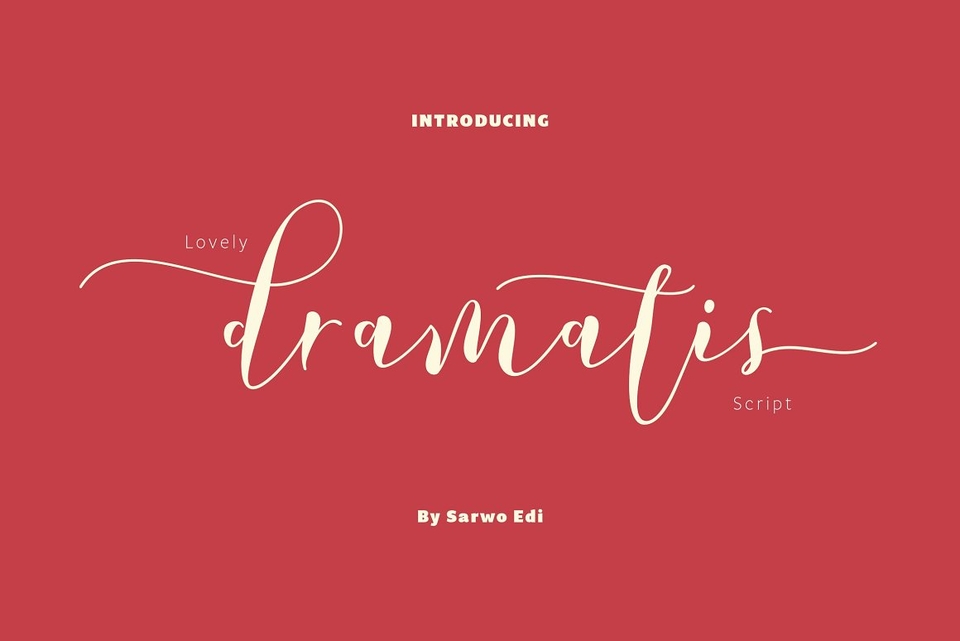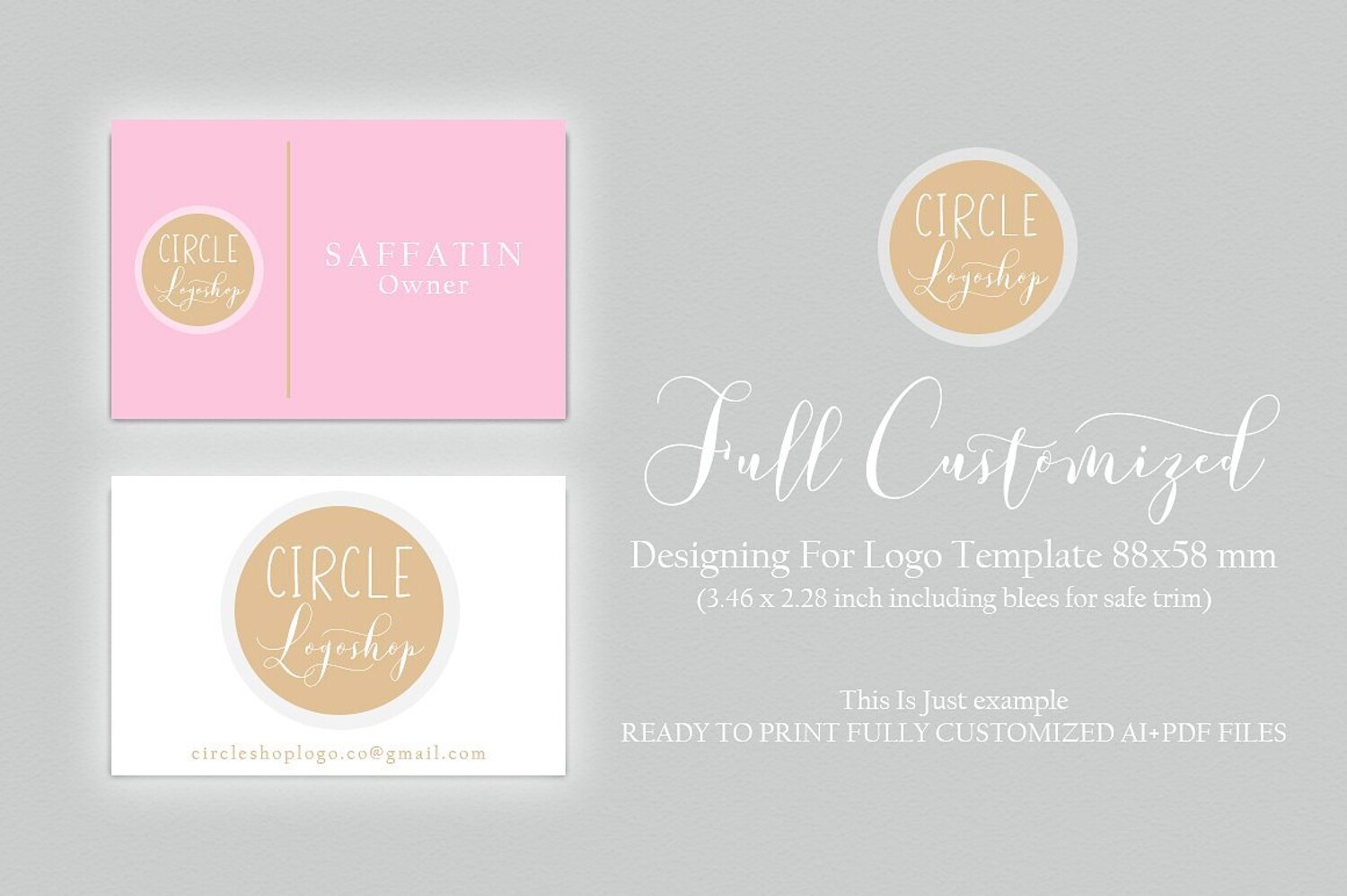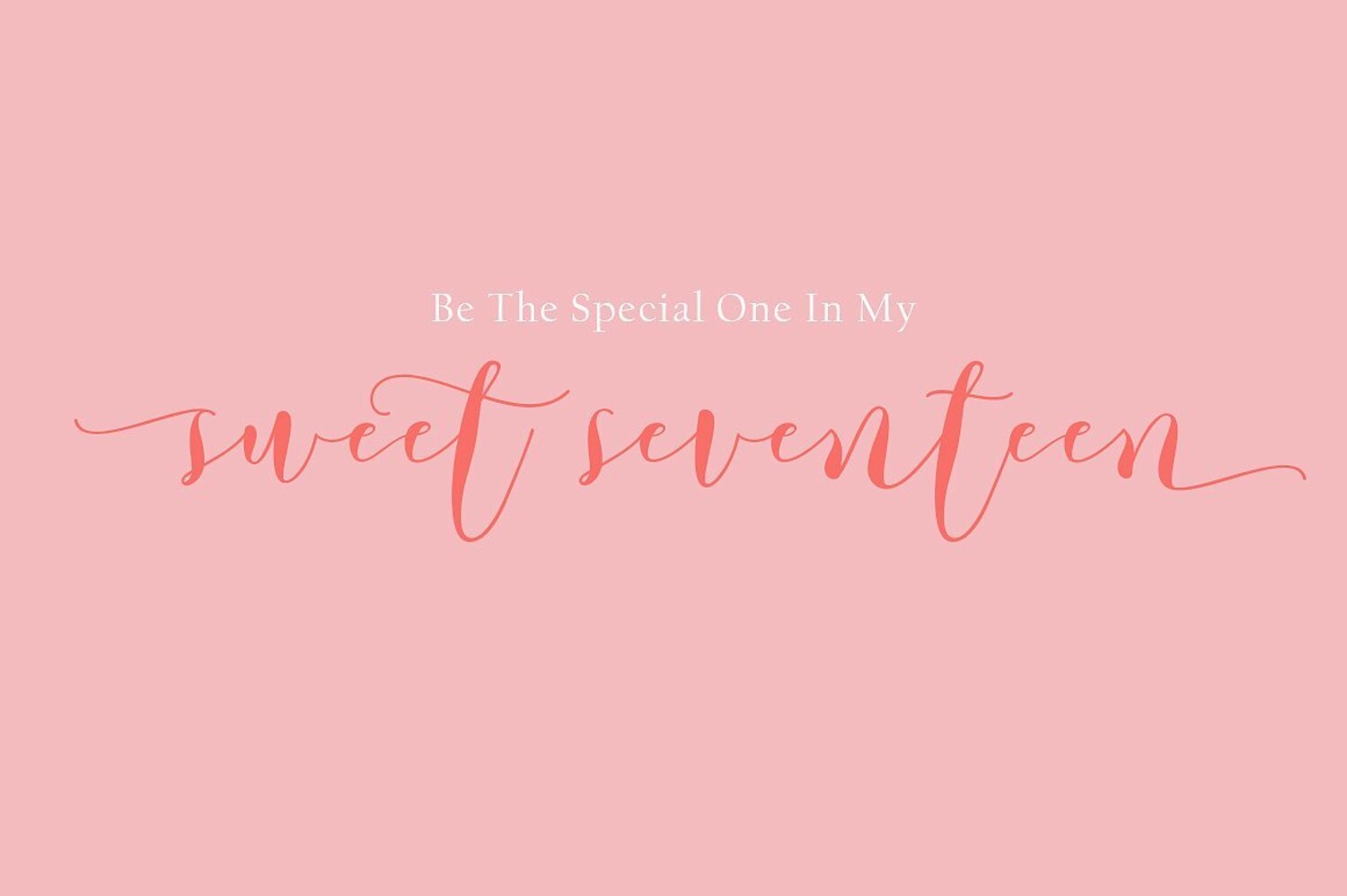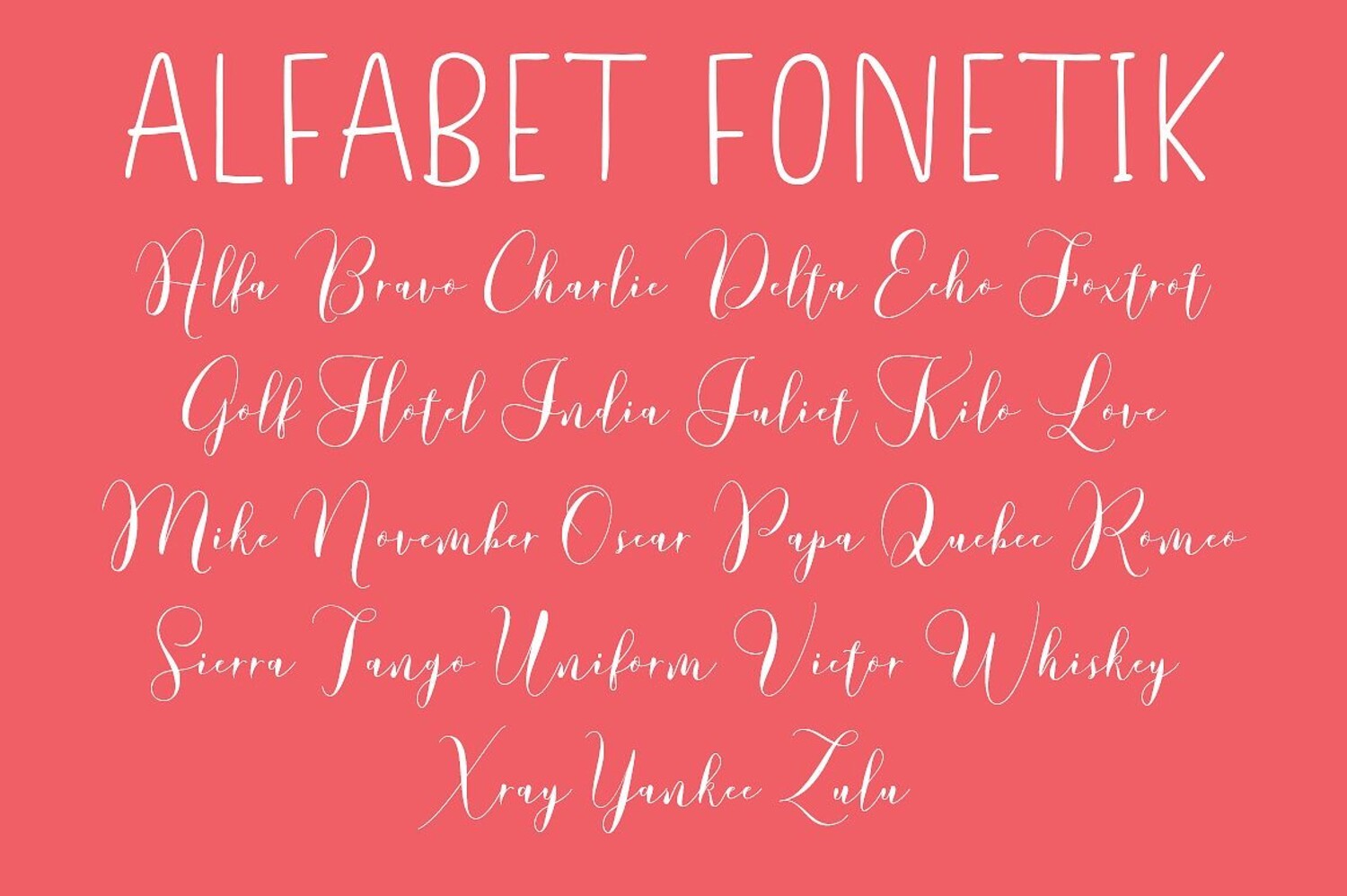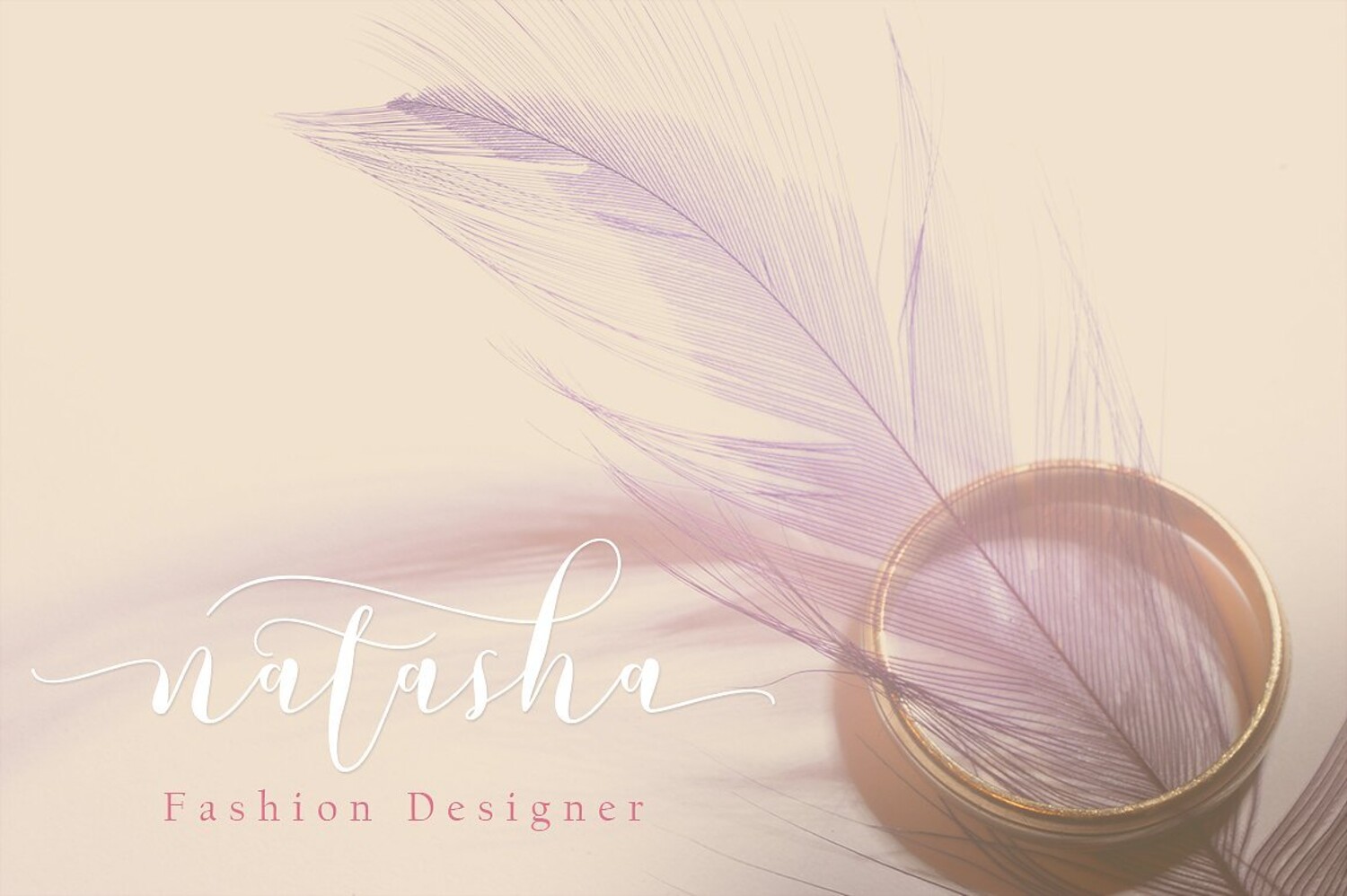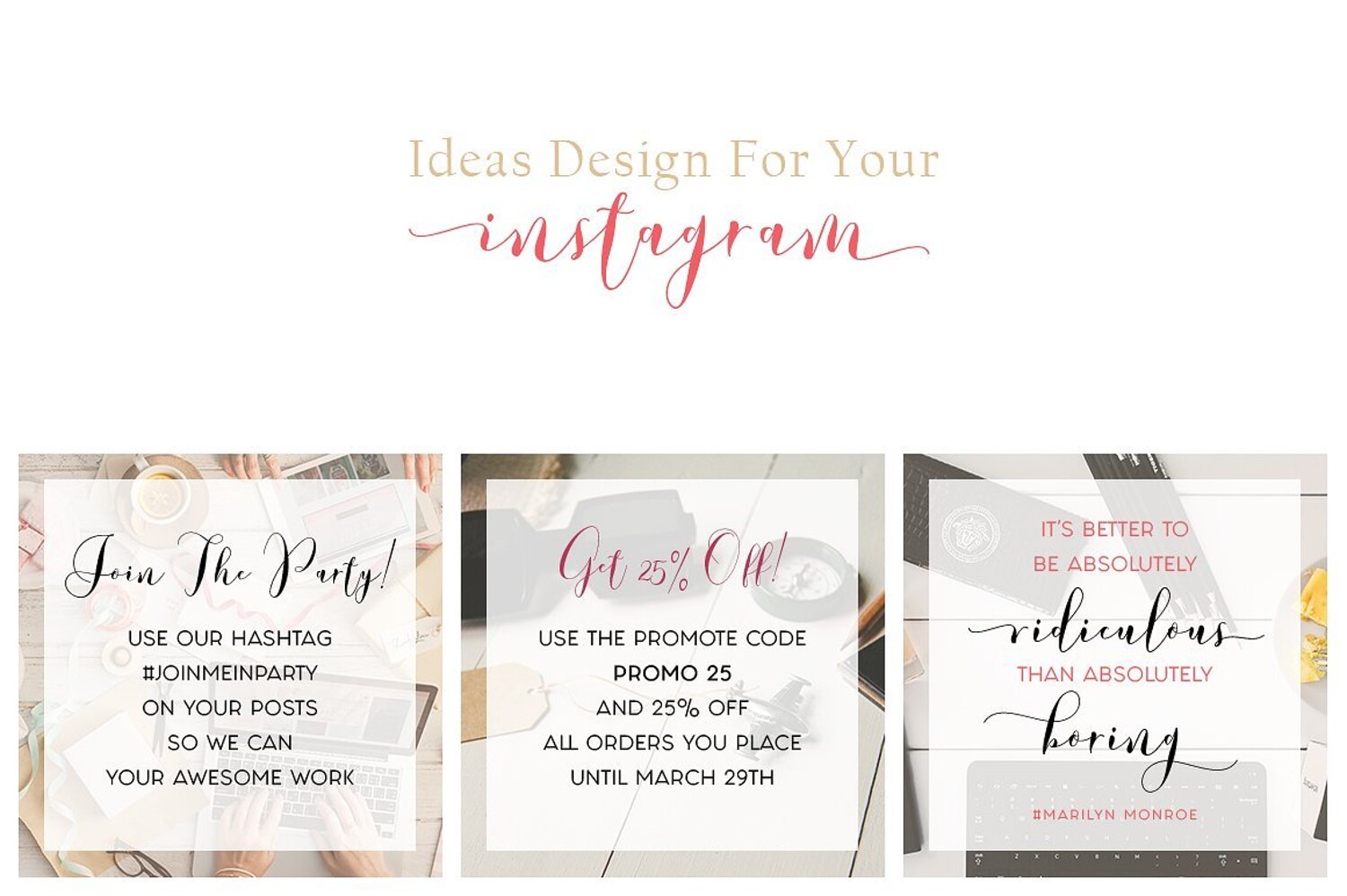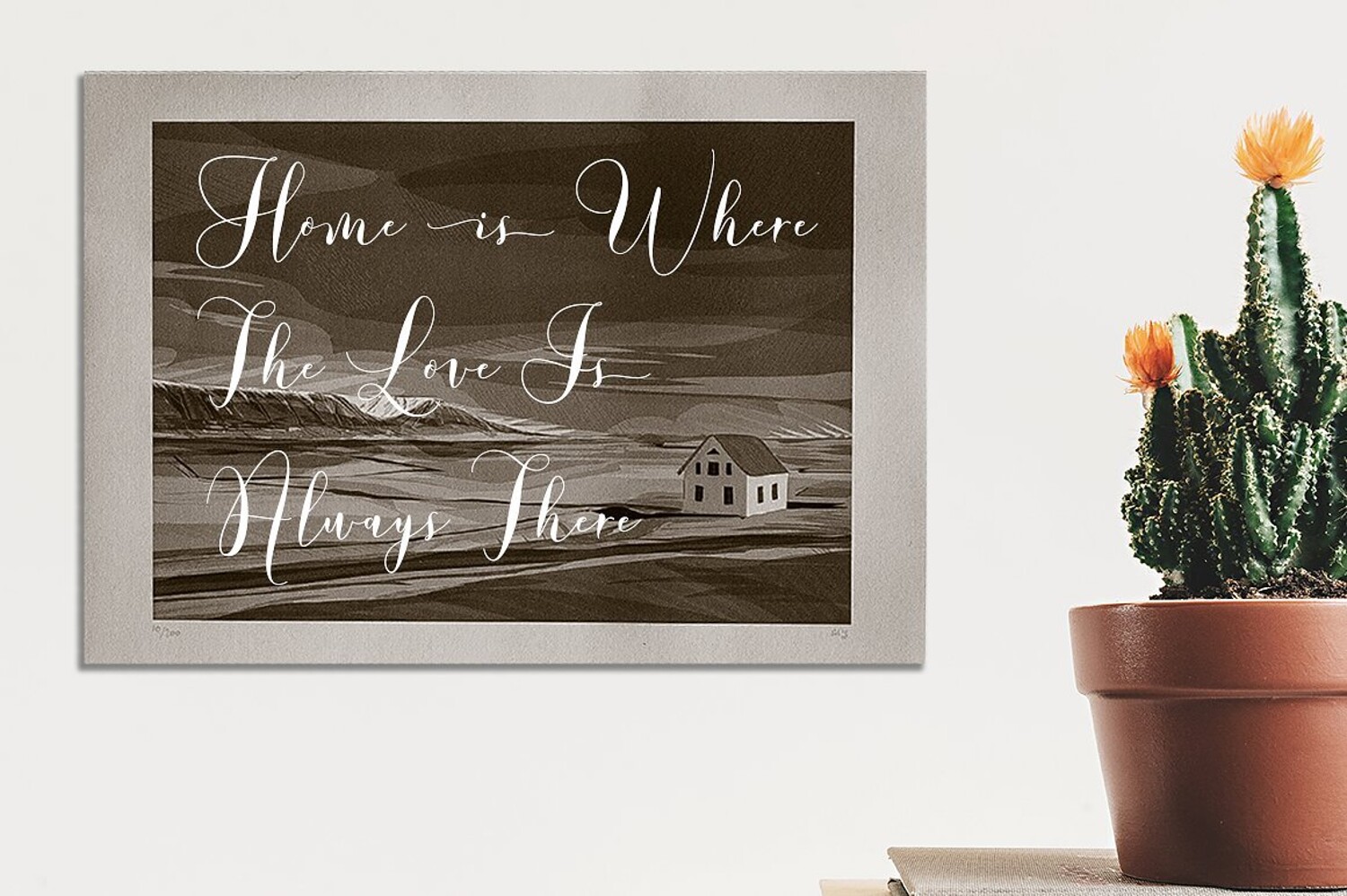
Lovely Dramatis Script Fonts
LOVELY DRAMATIS is a modern script typeface. This font very easy to use and really playful. You can explore to create a combination that would be nice. Comes with modern style, is handmade and clean. LOVELY DRAMATIS, includes swashes, ligatures, Alternate and International support for most Western Languages. LOVELY DRAMATIS come with 484 glyphs. This typeface will look sweety for fashion, e-commerce brands, wedding boutiques, photography, quotes design, and a lot more.